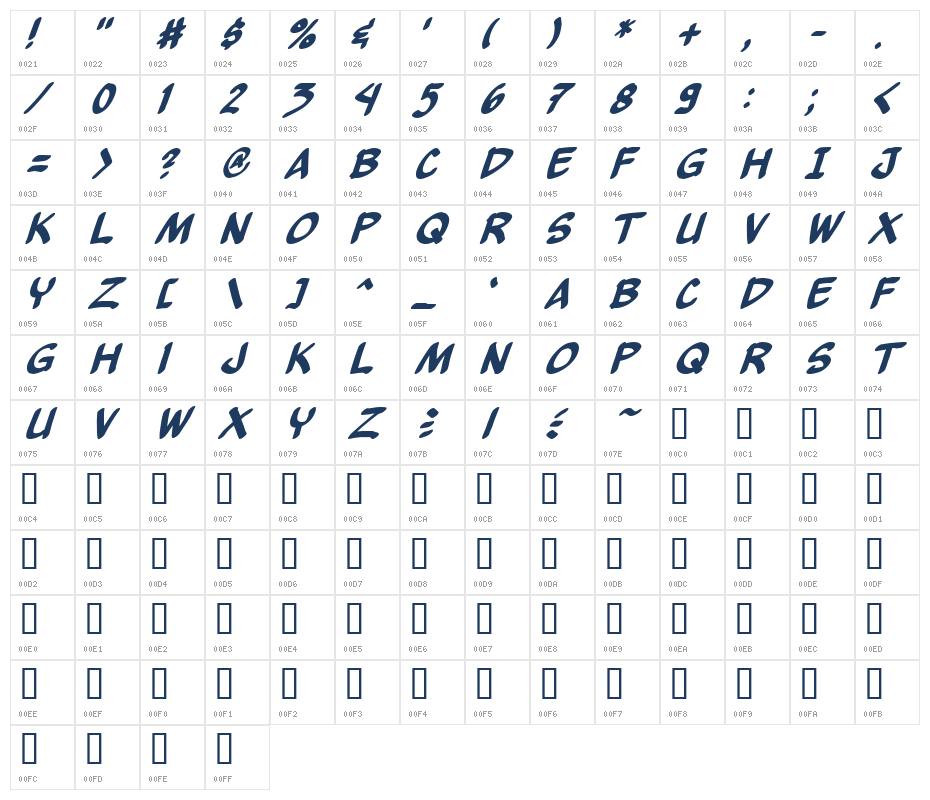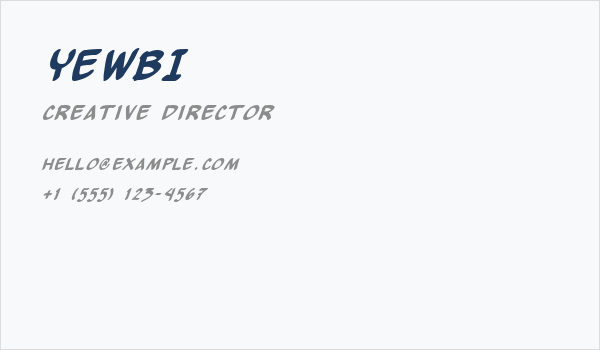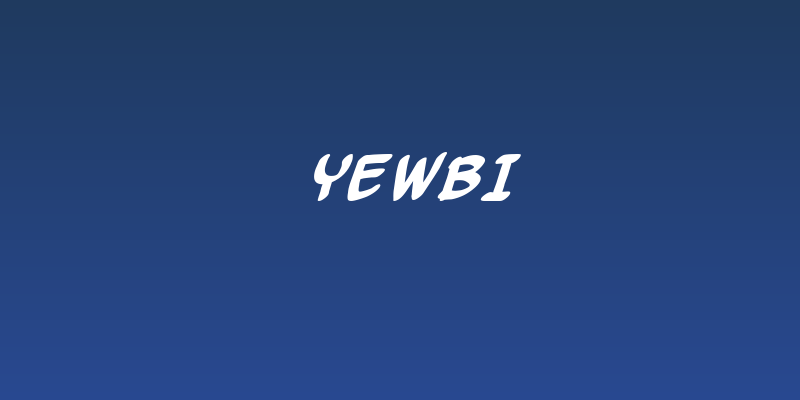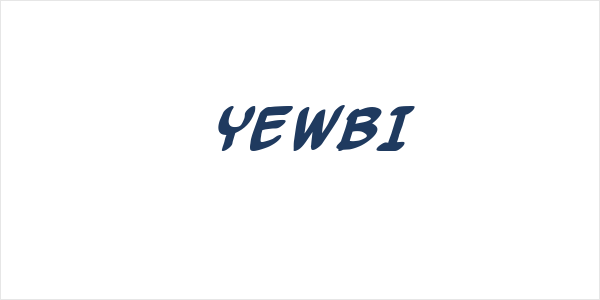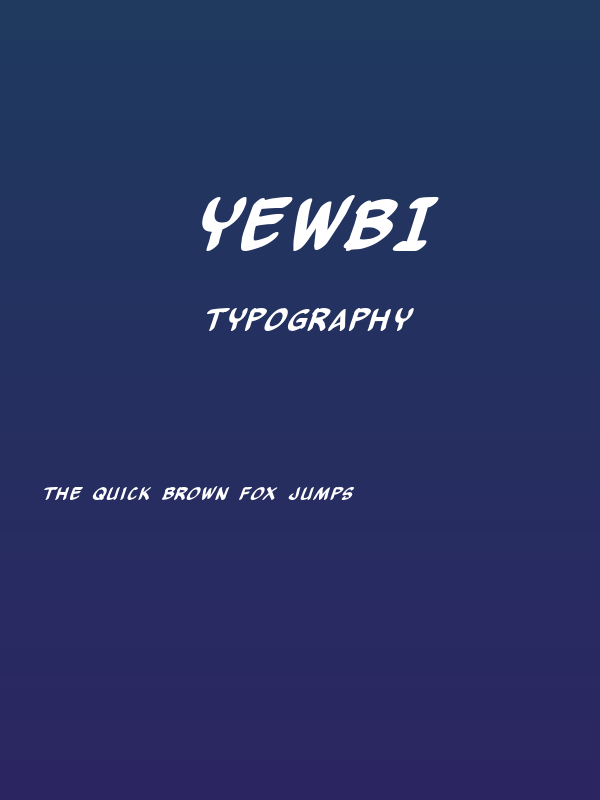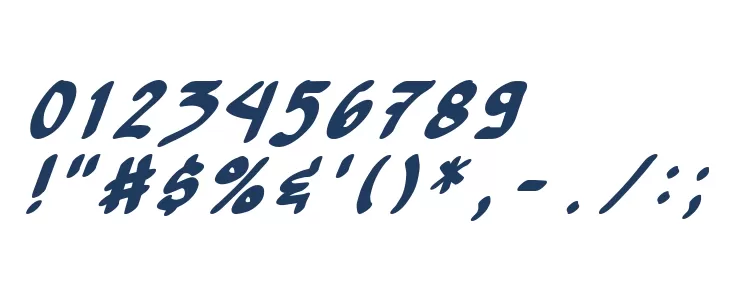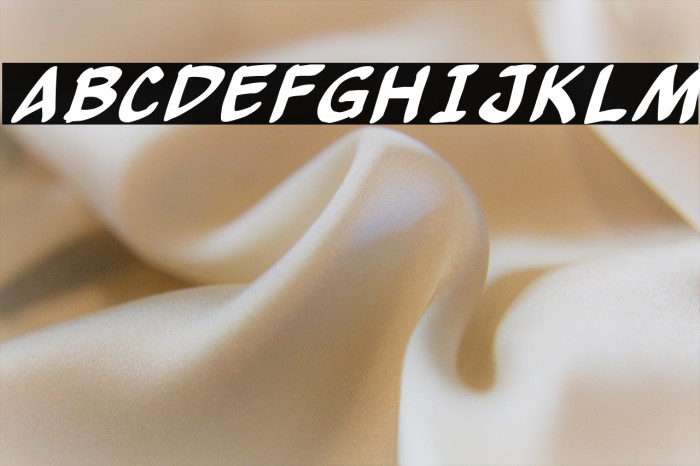
YEWBI Font
YEWBI Description
Bold, italic, brush-style script font with a casual and energetic appearance.
| Overall Style | Casual, Energetic, Handwritten |
| Use Case | Headlines, Logos, Branding, Posters |